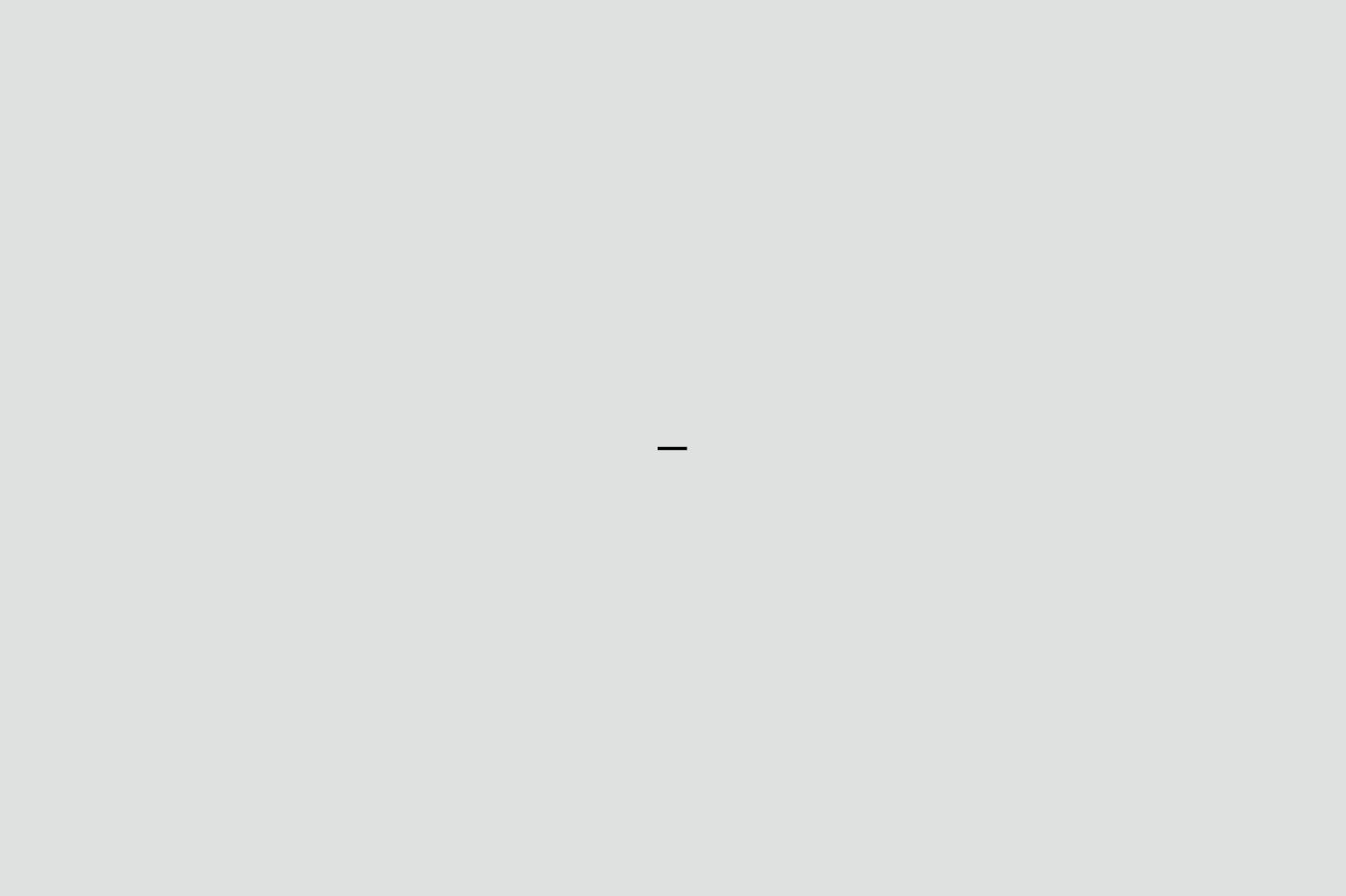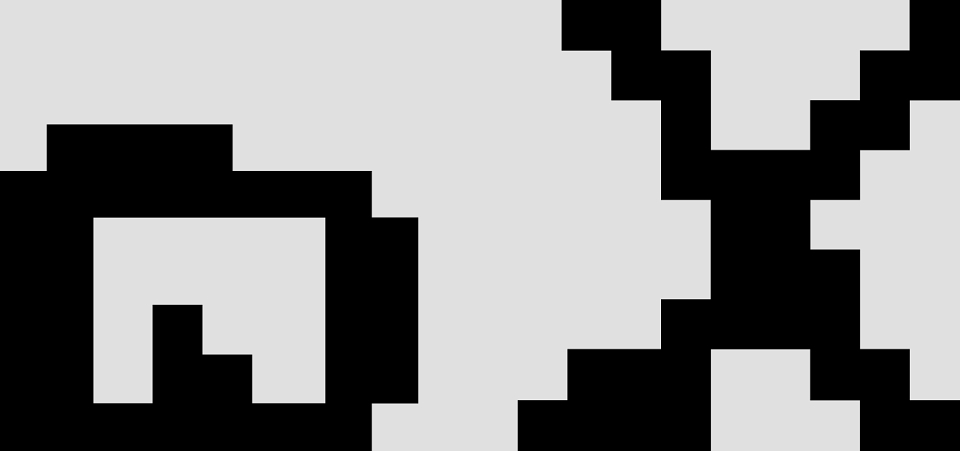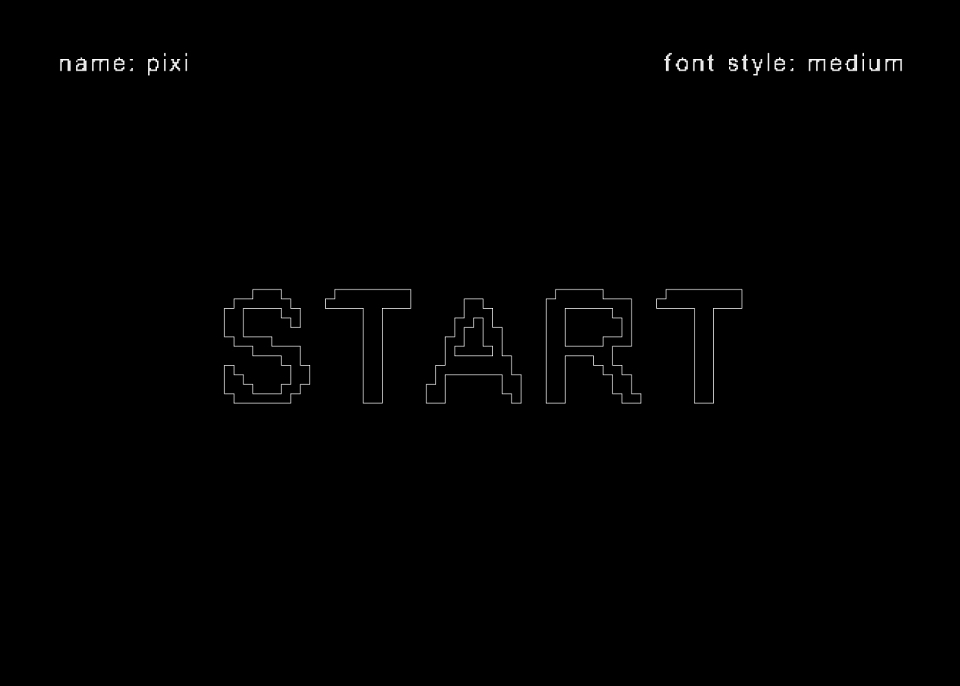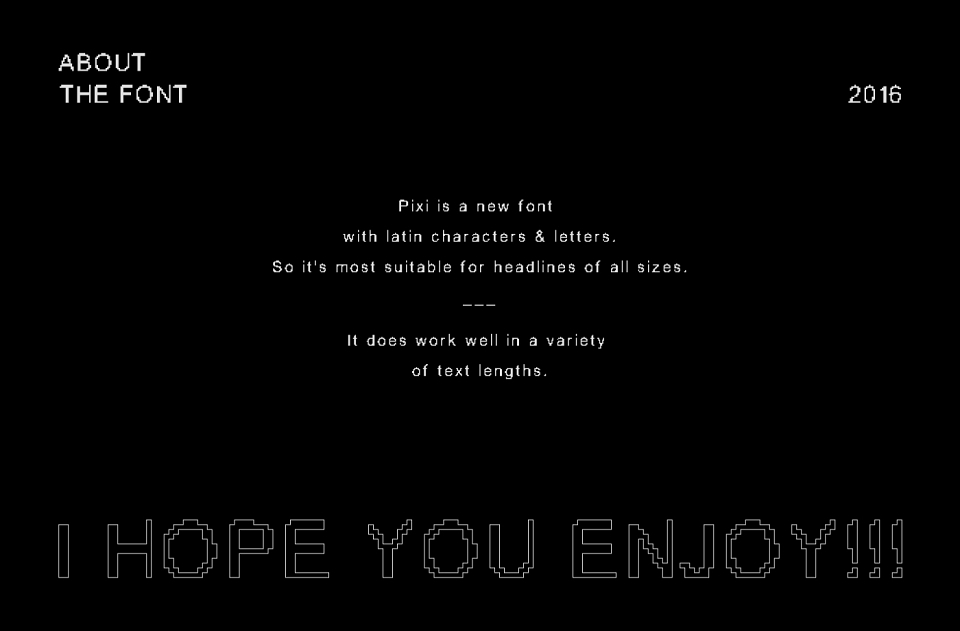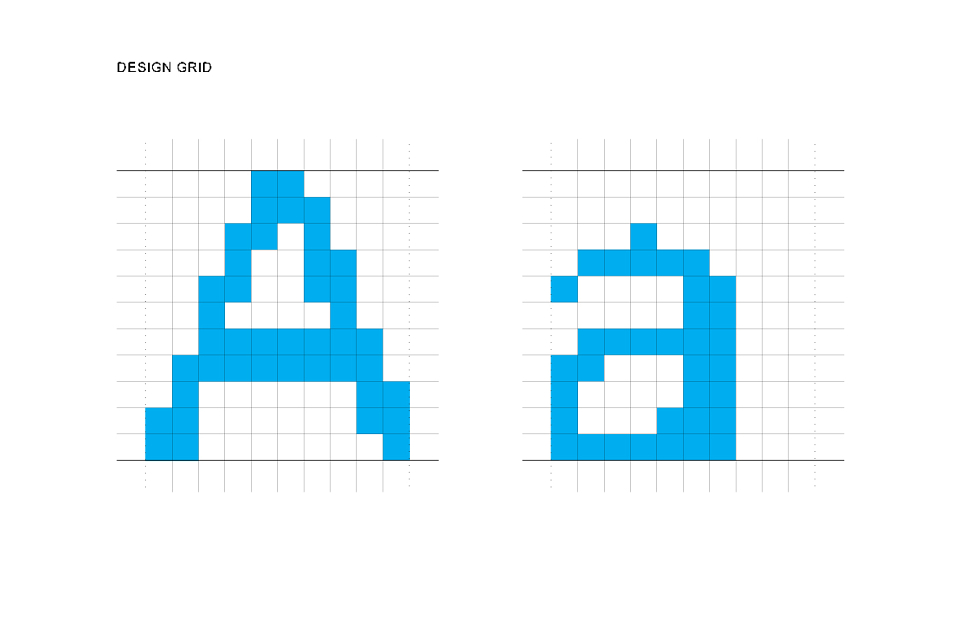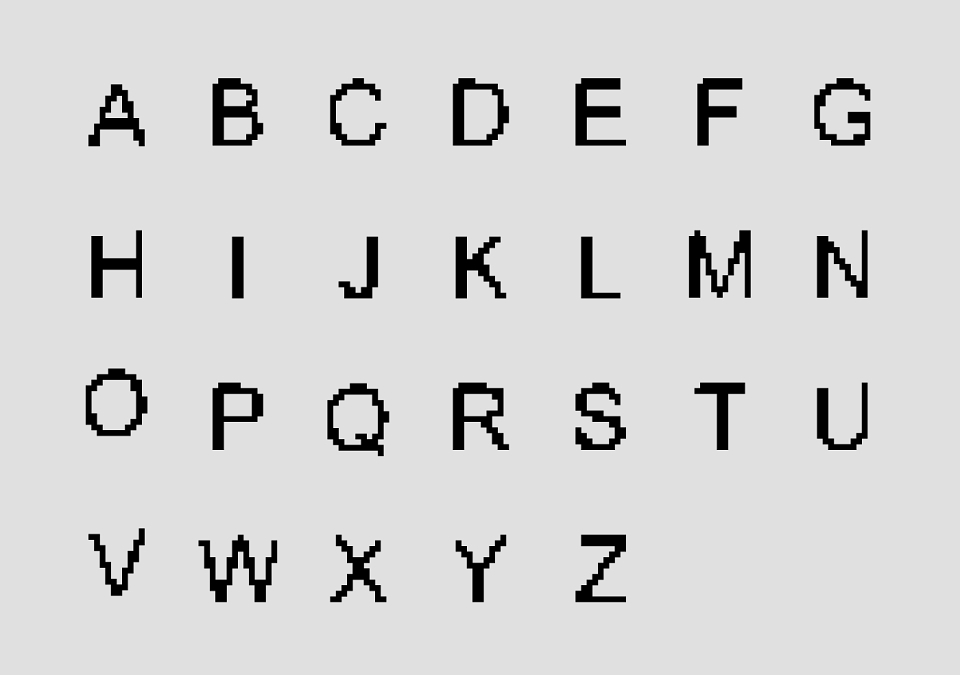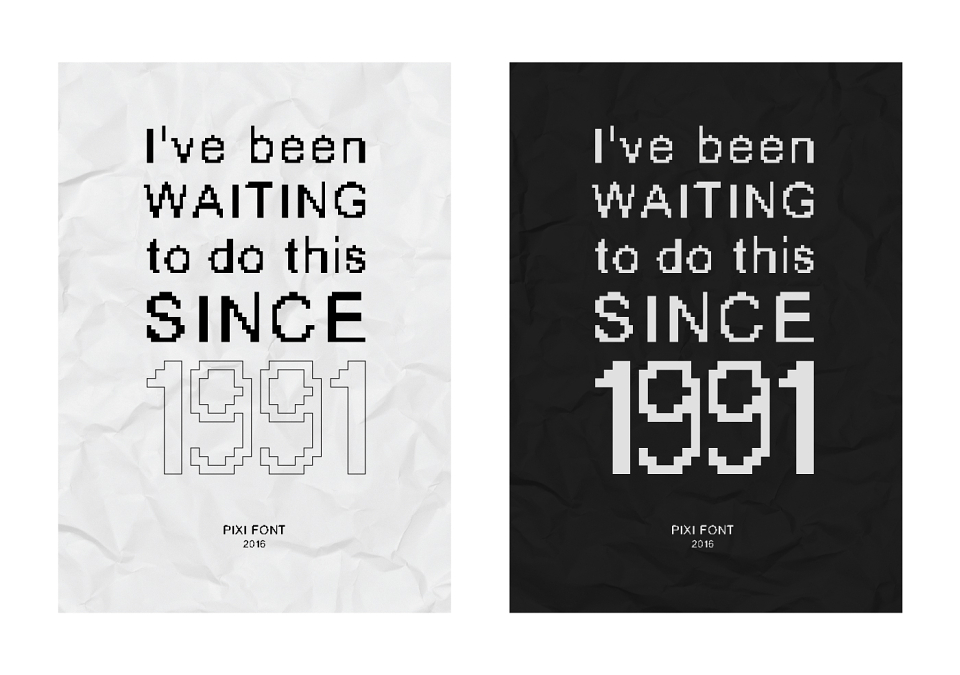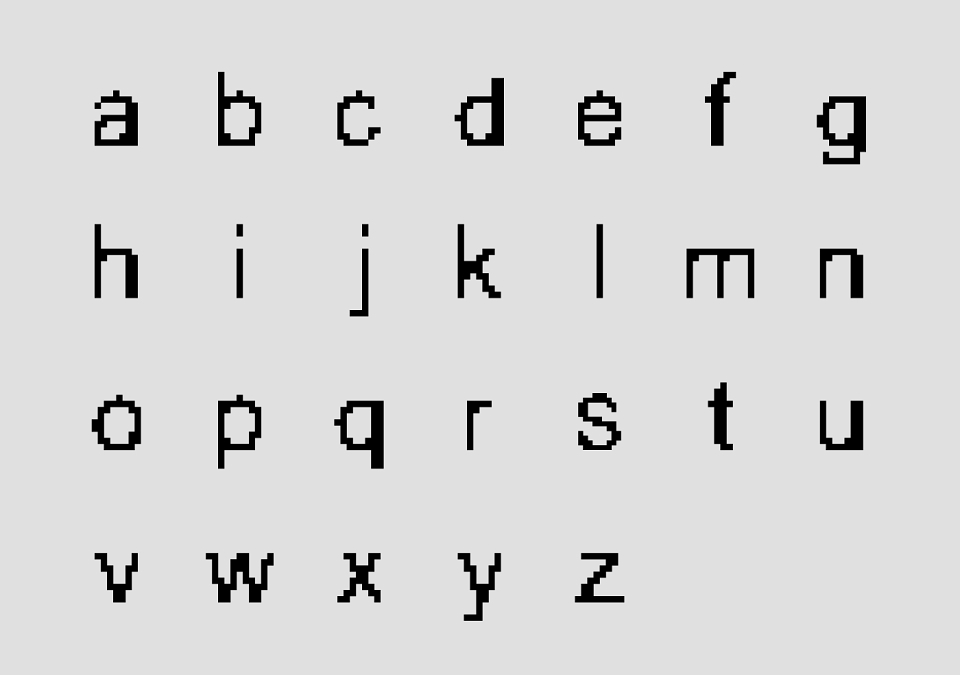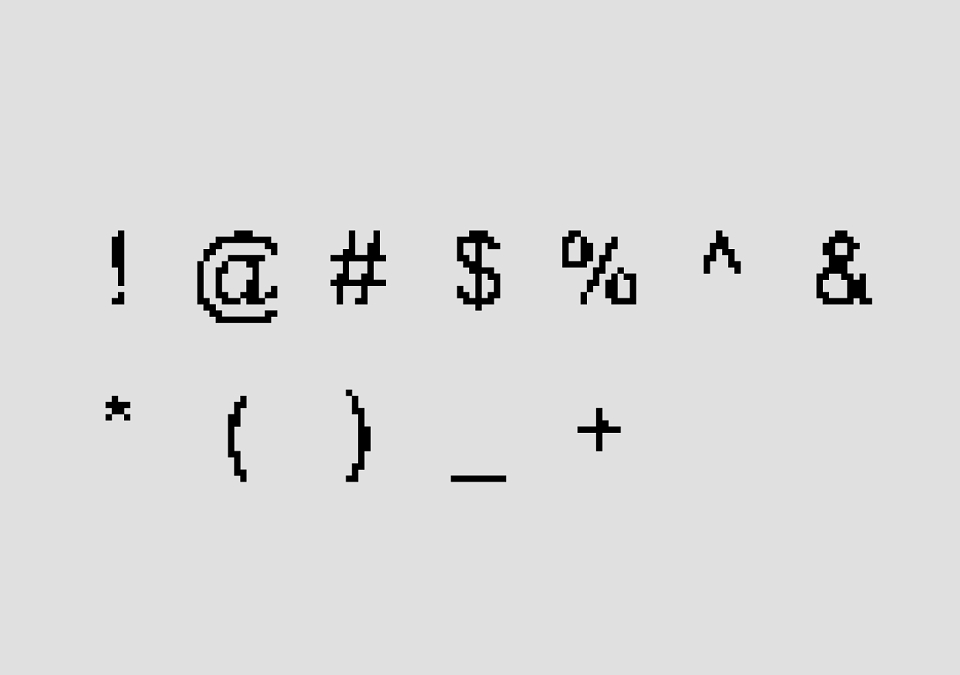
Marios Balaskas Art Director
Pixi is a new type with latin characters & letters. So it's most suitable for headlines of all sizes, but it does work well in a variety of text lengths. Enjoy!
Pixi Typeface